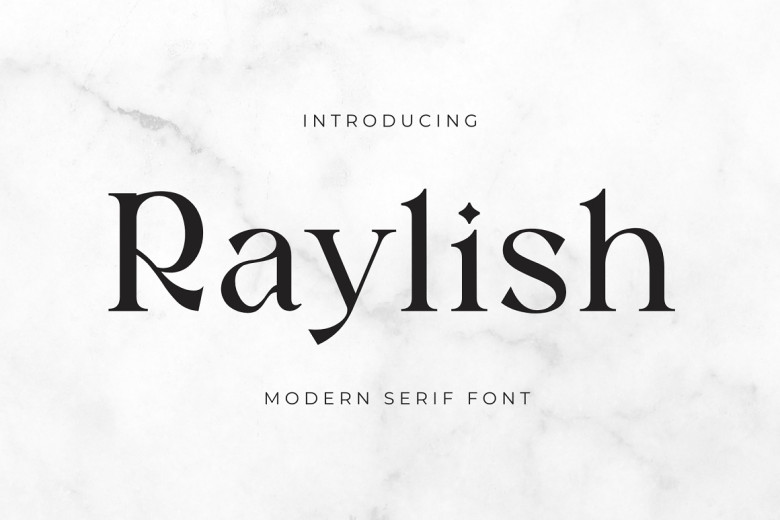
Raylish Font
Raylish is an elegant and charming serif typeface with a delicate appearance, perfect for use on presentations, advertisements or even high-end theme creations.
Raylish Serif Font